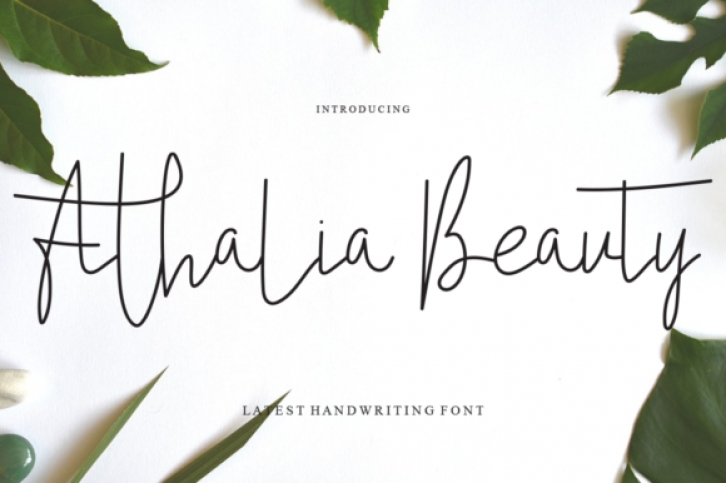
Athalia Beauty is a dainty, thin and cursive handwritten font. This gentle font will look gorgeous on a variety of design ideas. It will add a joyful and romantic touch to each of your projects!